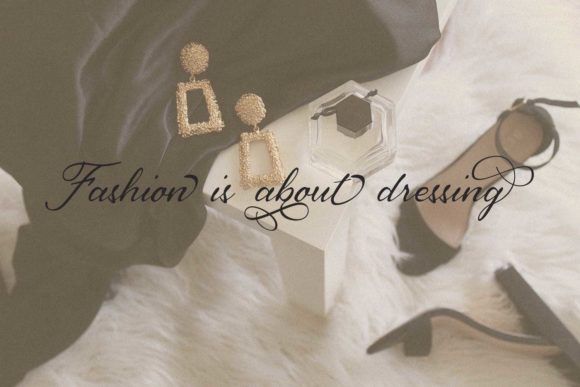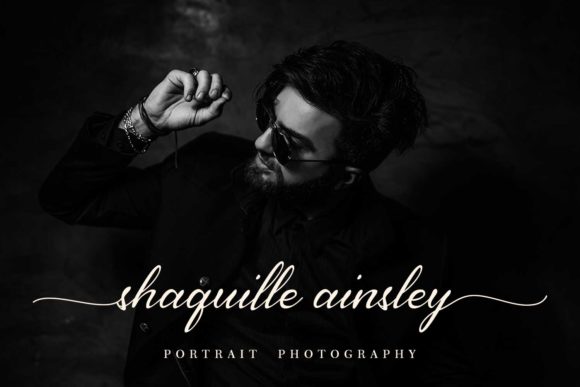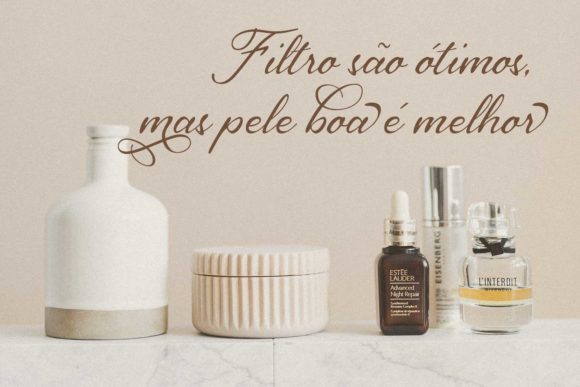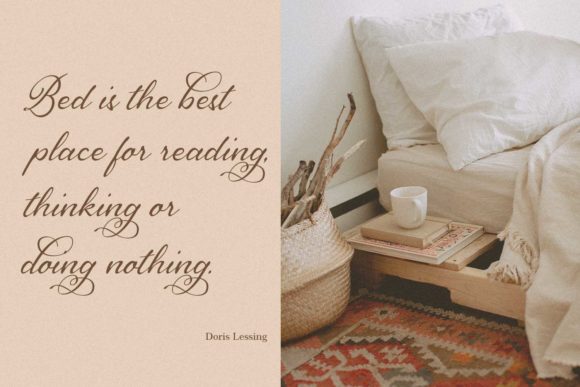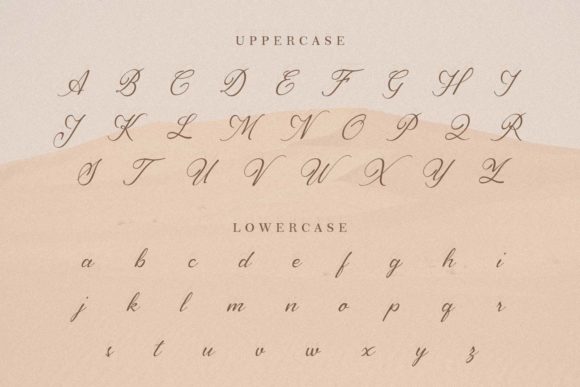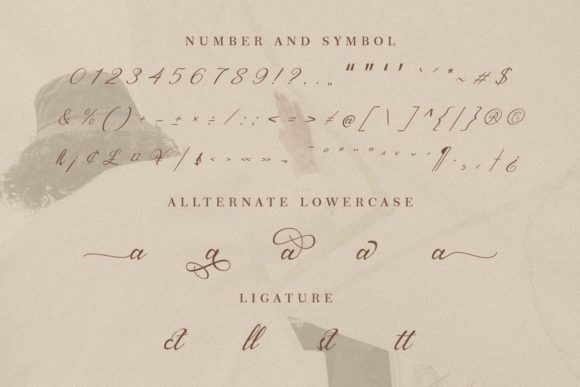
Introduction to Luxuriougenics Font
As a designer, there’s nothing quite like the feeling of discovering a new font that perfectly captures the essence of your creative project. It’s that moment when all the pieces fall into place, and your design goes from good to great. For me, that moment came when I stumbled upon the Luxuriougenics Font.
This elegant and charming font is a game-changer for any design project that requires a handwritten touch. From wedding invitations to business cards, Luxuriougenics Font is the perfect choice for designers who want to add a high-quality, personal touch to their work. With its smooth lines, gorgeous glyphs, and stunning alternates, this font is sure to elevate your designs and leave a lasting impression.
Key Features of Luxuriougenics Font
- High-quality design for creative projects, perfect as a design resource
- Includes 5 unique font styles, each with its own distinct character and flair
- Perfect for use in a variety of creative projects, from logos and branding to typography and graphics
Honest Review: Luxuriougenics Font
I recently had the chance to work with the Luxuriougenics Font, and I’m excited to share my thoughts. As a designer, I’m always on the lookout for high-quality fonts that can elevate my creative projects.
What works well: ✨ The Luxuriougenics Font is incredibly versatile and can be used for a wide range of design projects. Its sleek and modern design makes it perfect for creative projects that require a touch of sophistication. I also appreciate that it’s available for free download, making it an excellent design resource for designers on a budget.
What’s not so great: ⚠️ One of the limitations I found was that the font doesn’t have a transparent background option. This can make it a bit tricky to use for designs that require a transparent or semi-transparent text layer. Additionally, the font can look a bit cluttered when used for large blocks of text.
Overall impression: I think the Luxuriougenics Font is a solid addition to any designer’s toolkit. While it may have some limitations, its high quality and versatility make it a great choice for creative projects. Just be mindful of the potential issues with transparent backgrounds and large blocks of text.
- High-quality and versatile design
- Suitable for a wide range of creative projects
- May not be suitable for designs requiring transparent backgrounds
- Can look cluttered when used for large blocks of text
Tips for Getting the Most Out of Luxuriougenics Font
Use the Luxuriougenics Font in combination with other design elements, such as graphics and images, to create a visually appealing design. Experiment with different font sizes, colors, and styles to find the perfect look for your project. Consider using the Luxuriougenics Font for a creative project, such as a brochure, flyer, or business card.
The Luxuriougenics Font is suitable for a variety of design projects, including logos, branding, and marketing materials. It’s also a great